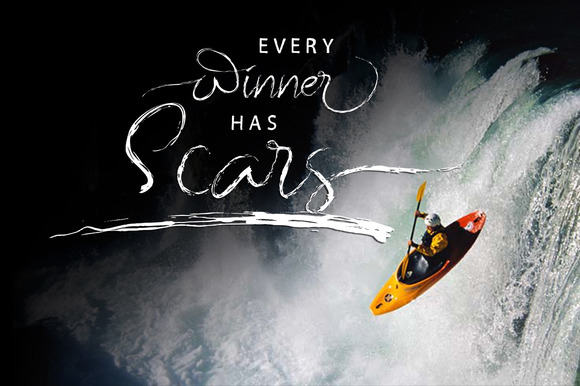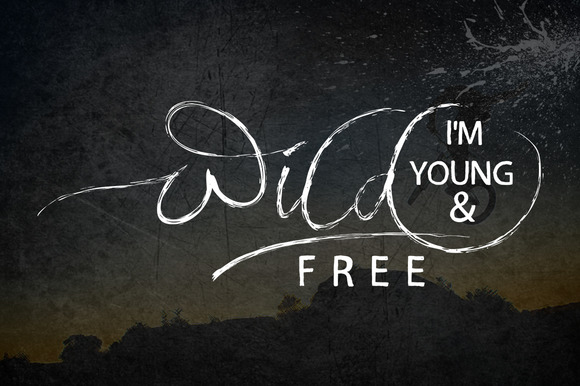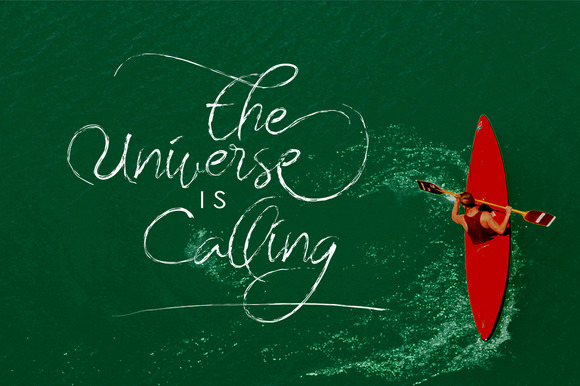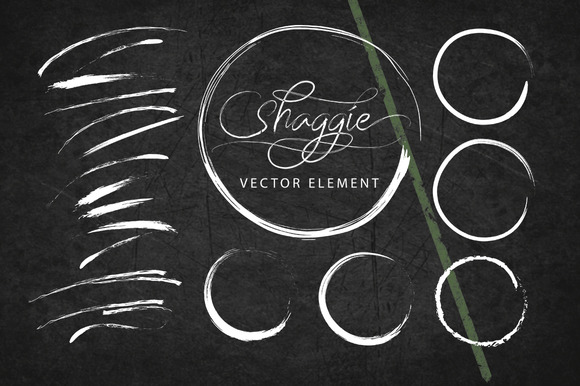
Shaggie Font
About Shaggie Font
Shaggie is a stunning, rough & dancing hand-brushed font.
This is nicely curved font was made with love and lots of attention to detail by the Incools Design Studio, know from many stunning handwritten fonts.
This elegant font can be used for many types of projects and will give the ultimate personal touch to any design.